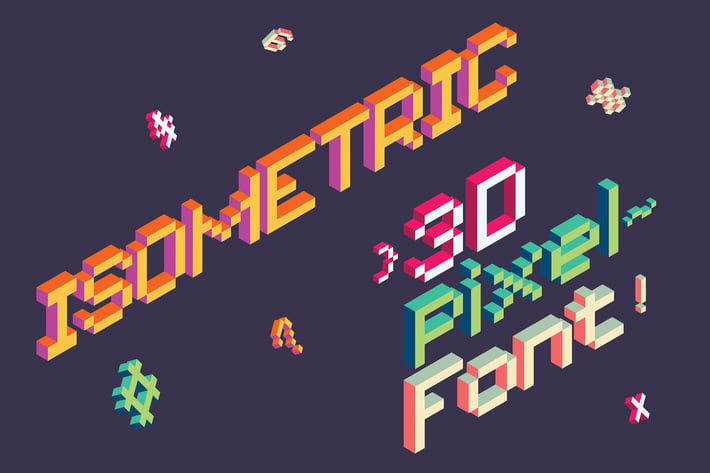
Isometric Pixel Font Vector Letters Alphabet
This package is a set of alphabets are made of Isometric Pixel for Adobe Illustrator. You may compose them to any sentence. You can change color and can be scaled to any size without loss of resolution.
This pack contains 104 elements:
- Uppercase Letters A-Z
- Lowercase Letters a-z
- Numbers 0-9
- 42 Symbols